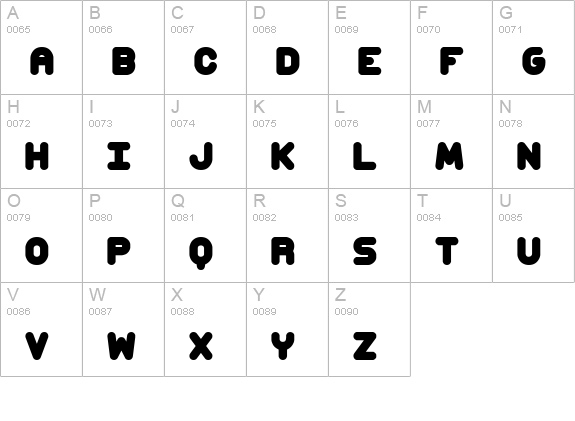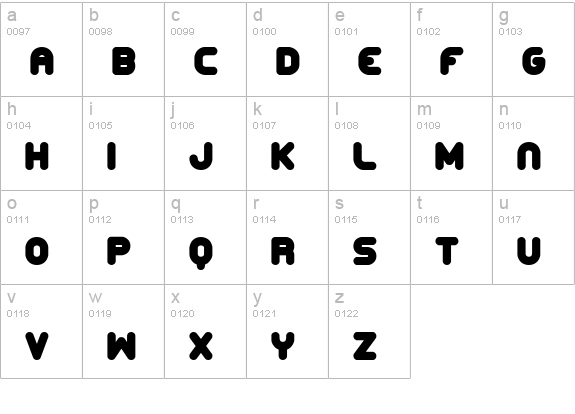
Corpulent Caps BRK font is a bold and eye-catching typeface that exudes a sense of power and strength. With its thick, rounded characters, this font is perfect for making a statement in headlines, logos, and other design projects that demand attention. The generous curves and ample spacing give Corpulent Caps BRK a modern and impactful look that is sure to stand out. What sets this font apart is that it is available for free download at FontsMarket.com. Whether you're a designer looking to add a unique touch to your creations or a business owner in need of a distinctive logo, Corpulent Caps BRK is a versatile choice that won't break the bank. Get your hands on this striking font today and elevate your designs with its commanding presence.